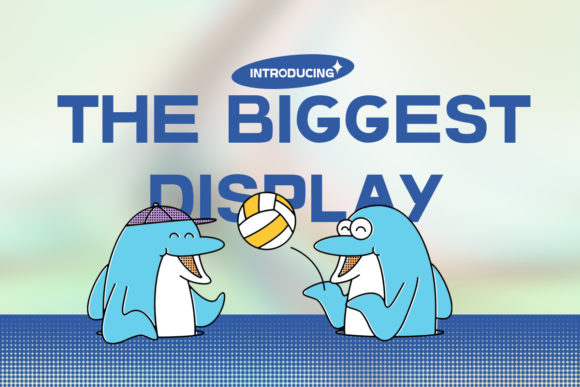
The Biggest Display for Bold Editorial Design
Sitting at my desk with a fresh cup of coffee, I was tasked with redesigning the header for a new lifestyle blog. The goal was to create something that felt both modern and inviting—something that would immediately draw readers in. That’s when I discovered The Biggest Display, a display font that seemed to embody exactly what we were looking for. Its chunky characters and adaptable style made it stand out from the usual choices, and I knew right away that this font could be the anchor of our new design.
The Biggest Display for Lifestyle Blog Headers
The Biggest Display brought a boldness to the blog header that felt authentic and unapologetic. When paired with a clean sans serif font for the subheadings, it created a strong visual hierarchy without overwhelming the reader. The thick strokes and generous spacing gave the title a sense of presence, making it ideal for grabbing attention on a digital screen or print layout. It wasn’t just about aesthetics—it was about creating a mood that matched the blog’s tone: confident, approachable, and visually rich.
I tested it across different screen sizes, and its readability remained consistent. Even on mobile devices, where space is limited, The Biggest Display maintained its impact without becoming too dense. For a lifestyle blog, where visuals often speak louder than words, this font became the perfect choice to elevate the brand identity.
The Biggest Display for Recipe Ebook Titles
Next, I turned to an upcoming recipe ebook project. The challenge was to make the cover feel appetizing yet professional. The Biggest Display came into play again, this time as the main title. Its chunky characters gave the book a sense of warmth and reliability, while still feeling contemporary. The adaptability of the font allowed me to experiment with different weights and styles, ensuring the title never looked flat or overdone.
I paired The Biggest Display with a soft serif font for the subtitle, which balanced the boldness of the title with a more traditional, readable feel. This combination worked well for the content inside too—each chapter opener used the same font, reinforcing the brand’s visual consistency. Readers could instantly recognize the font as part of the book’s identity, making navigation easier and more intuitive.
The Biggest Display for Wedding Guide Covers
When designing the cover for a wedding guide, I wanted something that felt elegant but not too formal. The Biggest Display offered a unique middle ground. Its boldness added a touch of personality, while the clean lines kept it from feeling too chaotic. I experimented with using it in combination with a script font for accents, like the word “Wedding” in a slightly cursive style. The contrast between the two fonts created a nice balance, making the cover feel both modern and romantic.
For the interior, I used The Biggest Display sparingly—mainly for section headings and pull quotes. This helped maintain a clear visual rhythm, allowing readers to focus on the content without distraction. The font’s versatility made it easy to adapt to different sections, whether they were about planning the ceremony or choosing the right venue.
The Biggest Display for Newsletter Graphics
In another project, I was asked to redesign a monthly newsletter for a creative community. The goal was to make each issue feel dynamic and engaging. The Biggest Display was a natural fit for the header, where it drew the eye immediately. For the feature titles, I used a lighter version of the font to keep the text from feeling too heavy, while still maintaining the same visual language throughout the publication.
One of the most rewarding aspects of using The Biggest Display was how well it played with other fonts. I found that pairing it with a minimalist sans serif for body copy created a clean, modern look that was perfect for a digital newsletter. It also worked beautifully with a serif font for captions and footnotes, adding depth to the overall design.
As I worked through these projects, one thing became clear: The Biggest Display is more than just a display font—it’s a tool that can shape the mood, tone, and visual identity of any editorial piece. Whether you're working on a blog, an ebook, a magazine, or a newsletter, this font has the versatility and character to help your content stand out in a crowded digital landscape.